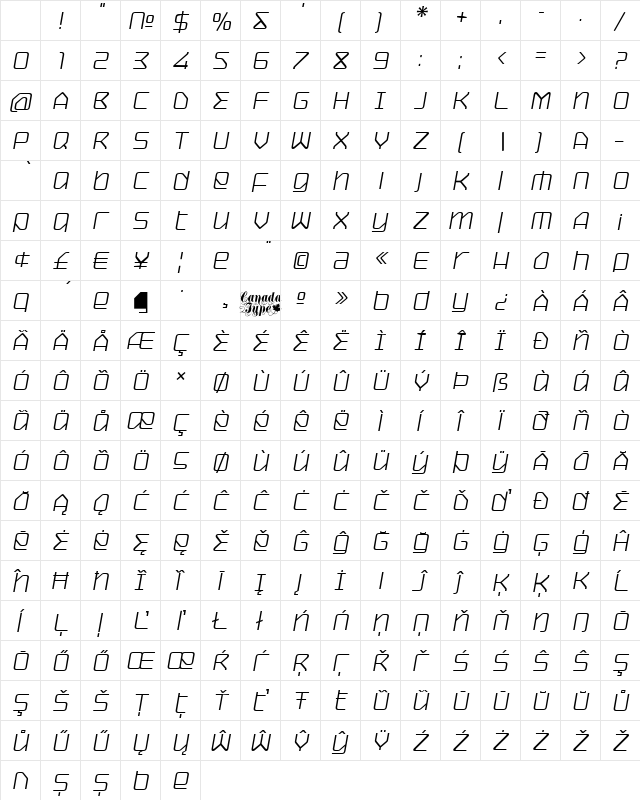
Hydrogen Italic
Foundry: Canada Type
Designer: Patrick Griffin
Design Context for Hydrogen
Hydrogen is a composed and adaptable typeface that performs quietly and consistently across a wide range of design contexts. The slanted form adds forward momentum and visual energy.